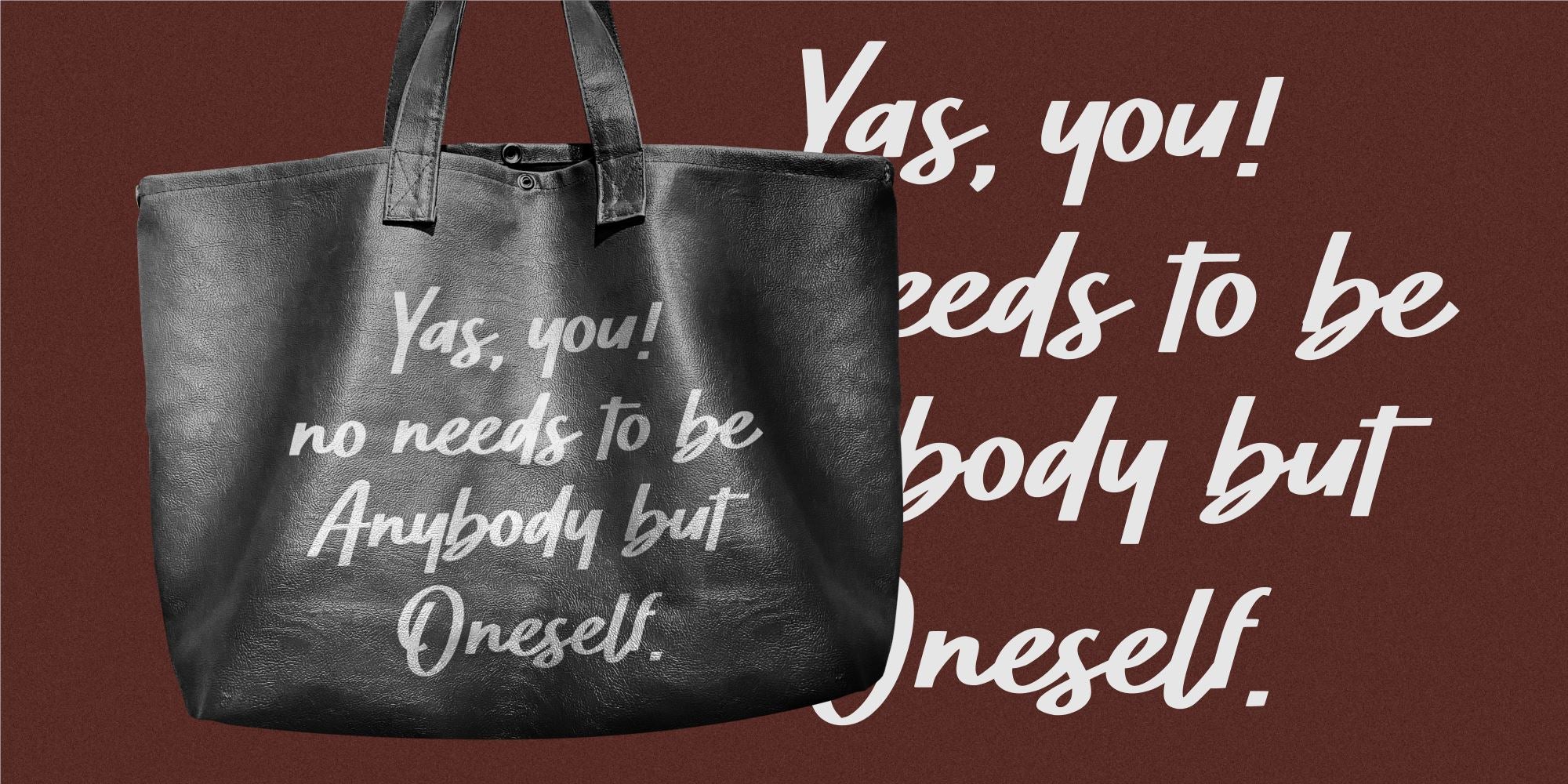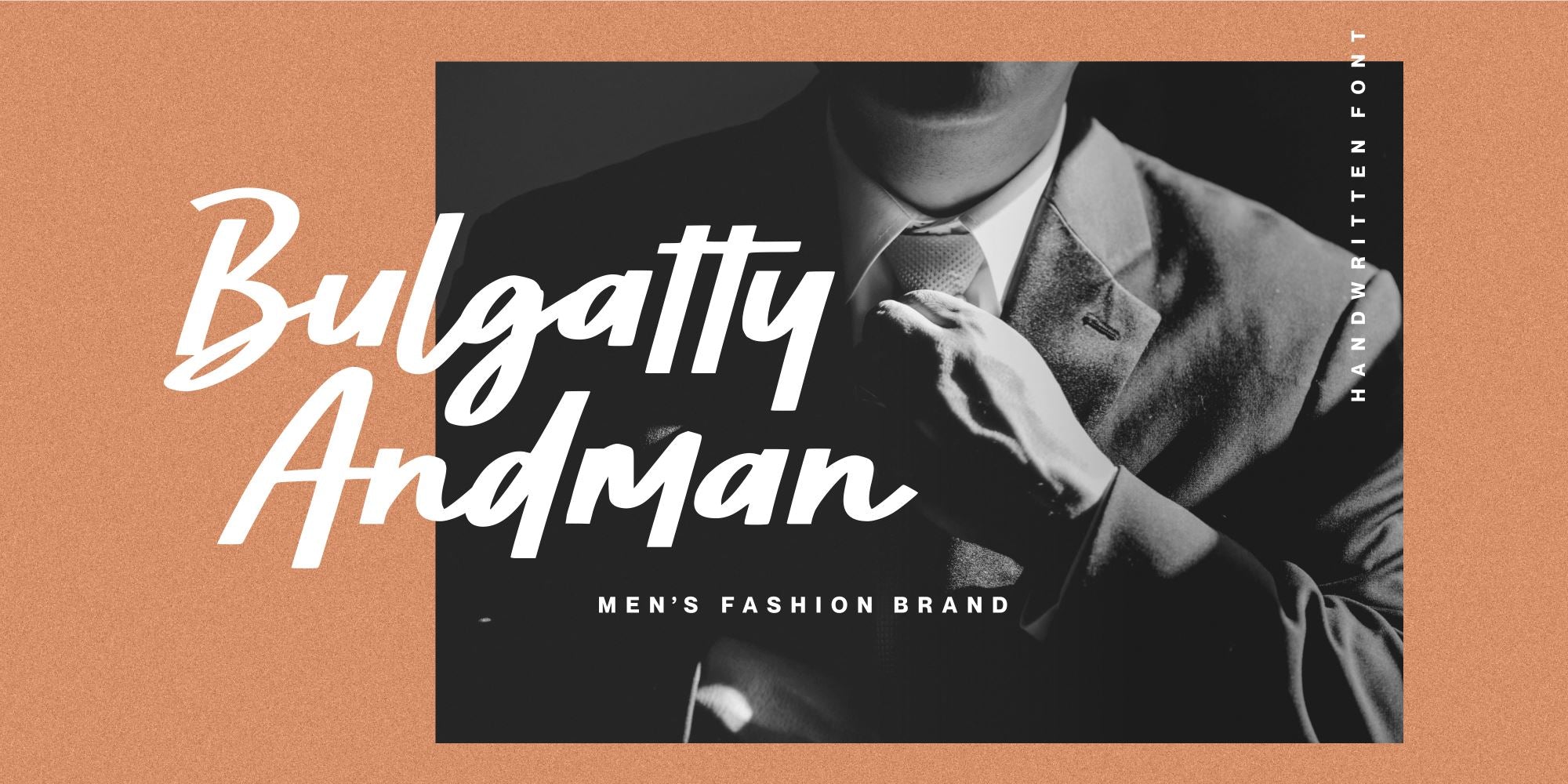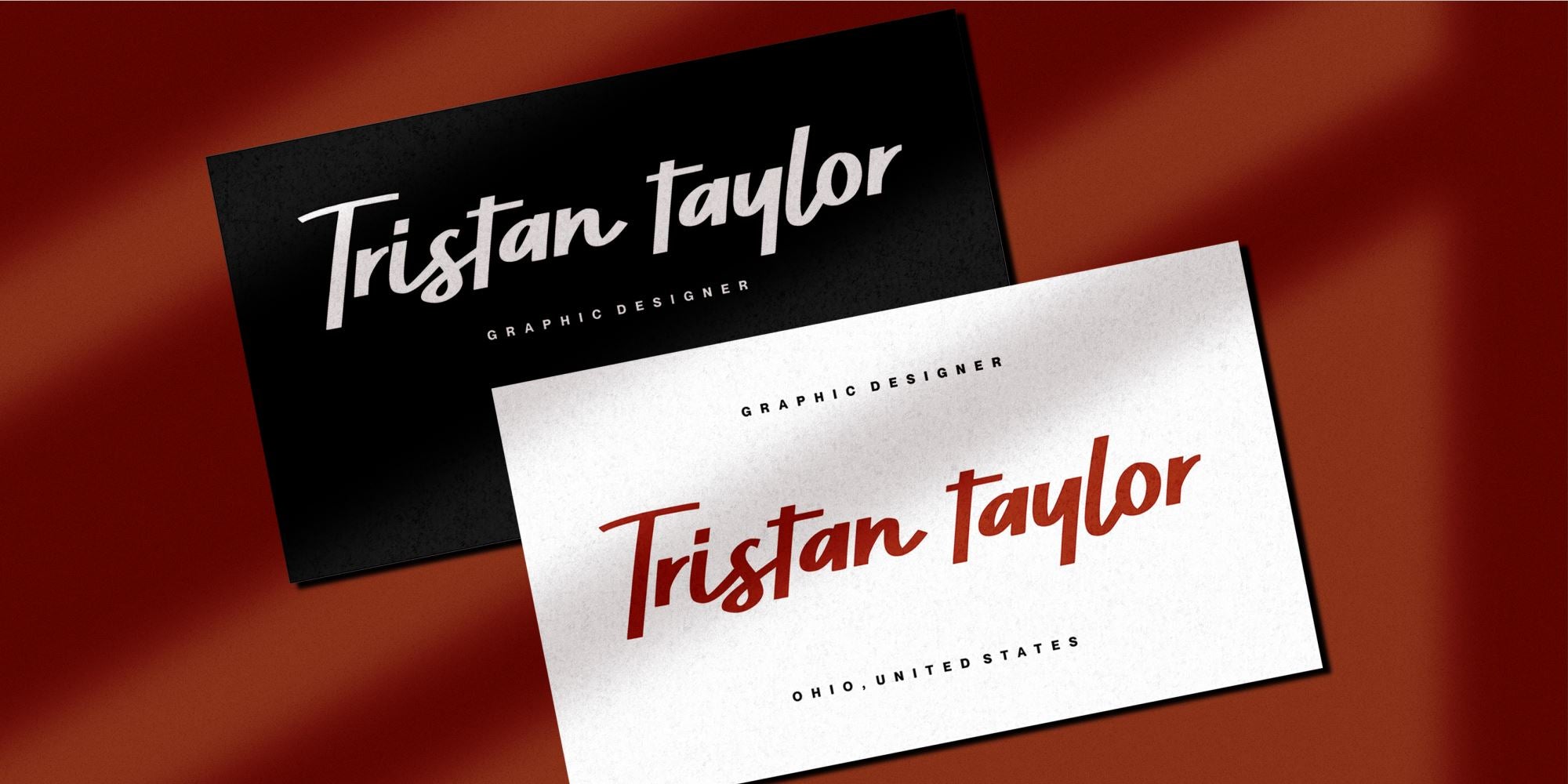
About Hummer Miller
Proudly Presenting, Hummer Miller a Bold Handwritten Font. Hummer Miller is perfect for any titles, logo, product packaging, branding project, megazine, social media, wedding, or just used to express words above the background. Hummer Miller also come with Multi-Lingual Support. Enjoy the font, feel free to comment or feedback, send me PM or email. Thank You!